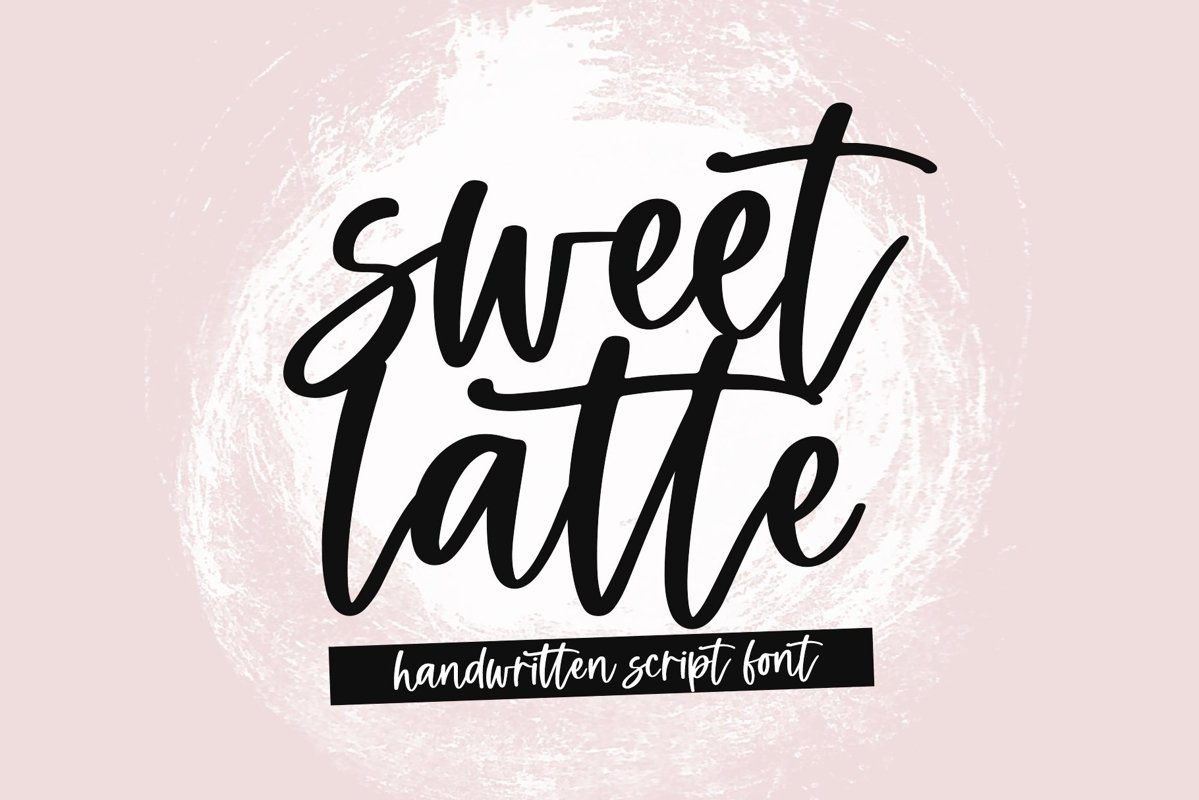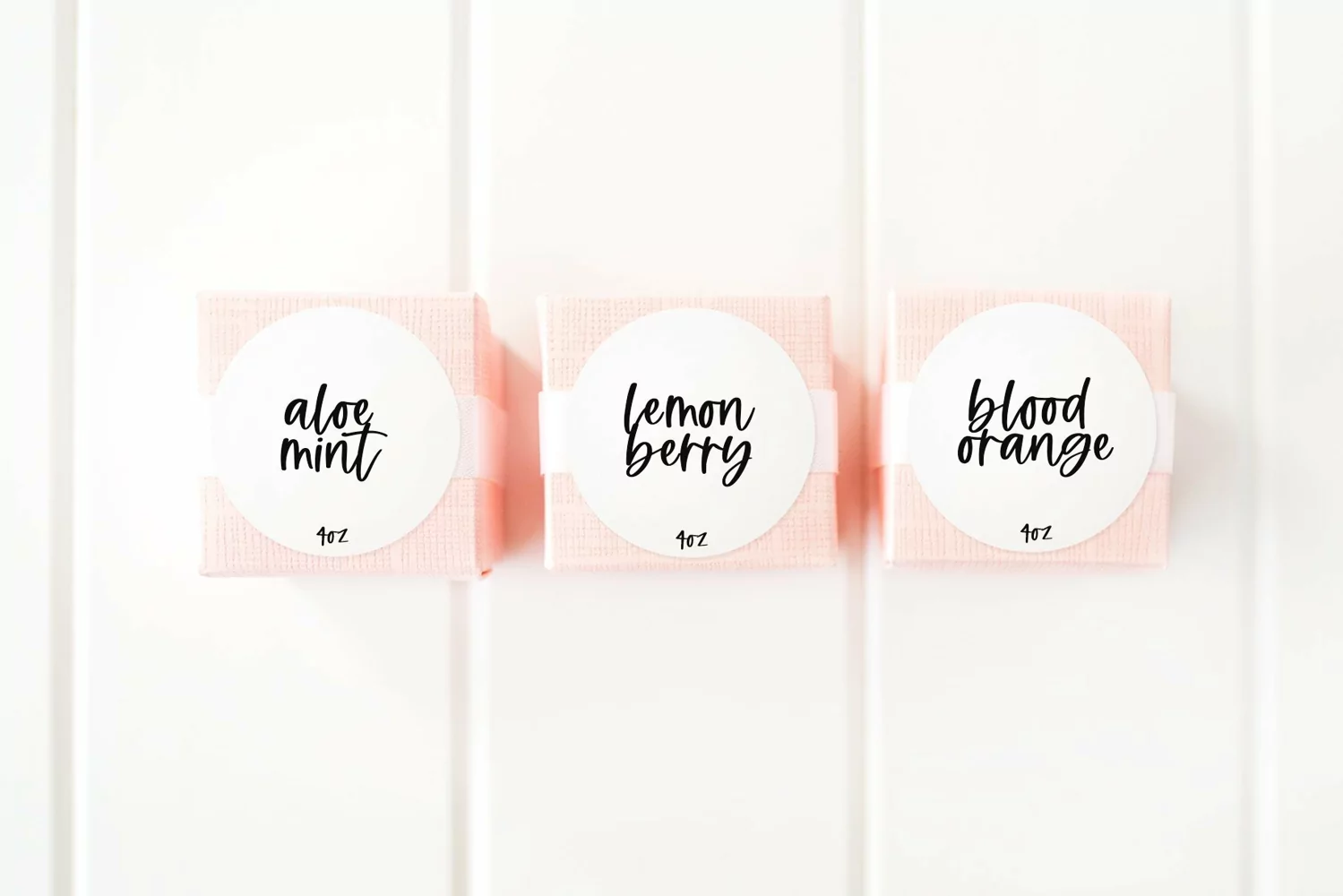
Sweet Latte is a modern handwritten script font!
This font is perfect for quotes, shirt designs, websites, branding, children's designs, svg designs, blogs, logos, invitations and more!